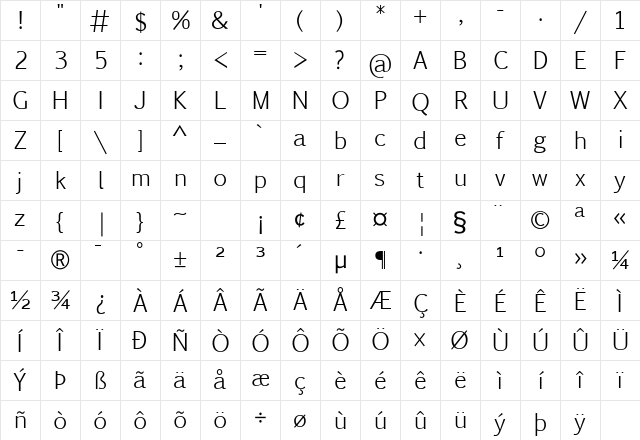
Pigiarniq Light Regular Free Font
Pigiarniq Light Regular
Designer: Wm. Ross Mills
Design Context for Pigiarniq Light
Pigiarniq Light is a composed and adaptable typeface that performs quietly and consistently across a wide range of design contexts. Its slender proportions lend an understated elegance to any composition.